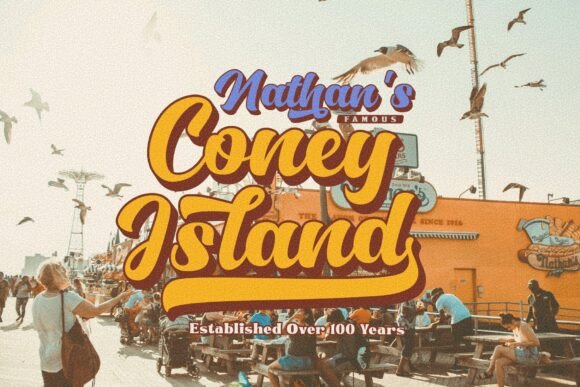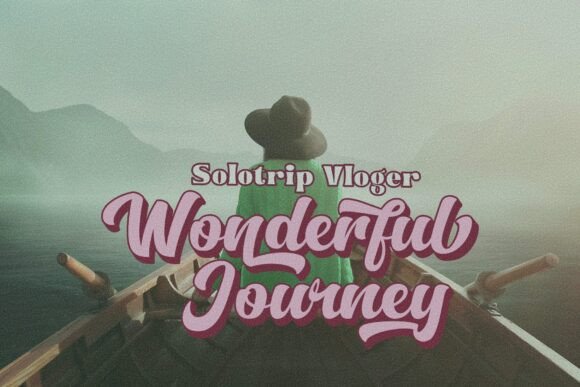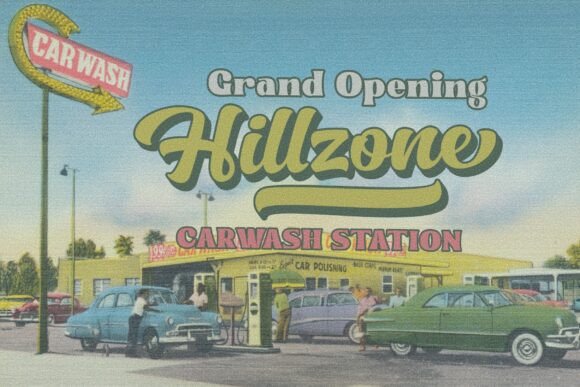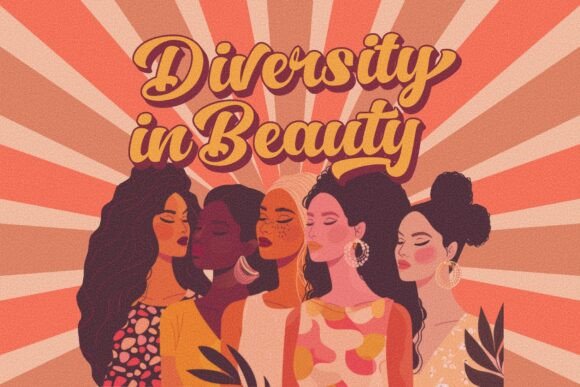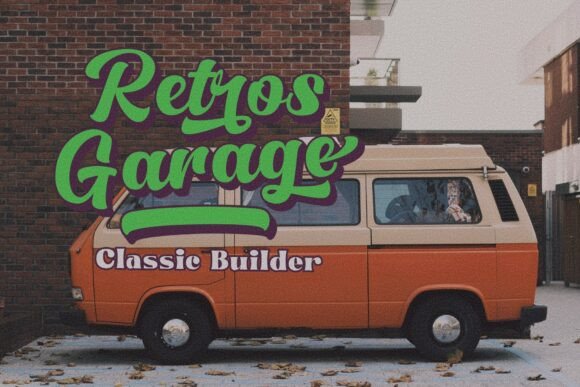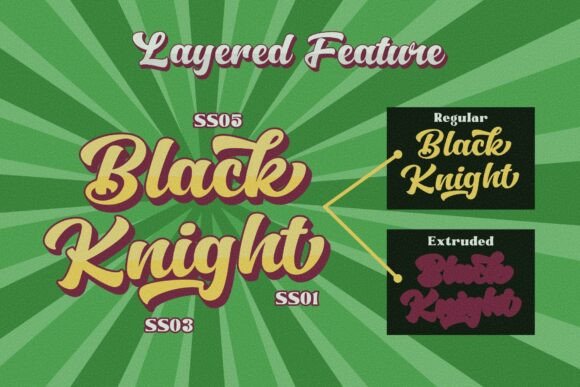
Introducing Black Knight Font: A Timeless Layered Script Font
Proudly presented, fresh from the oven, is the stunning layered script font known as Black Knight Font. This exquisite font is designed to add a touch of elegance and sophistication to any design project. In this article, we’ll delve into the features and benefits of Black Knight Font, and explore how it can elevate your designs to new heights.
A Unique Layered Design
One of the standout features of Black Knight Font is its layered design. To use this font, the regular font must be placed in front of an extruded font, which serves as the background. This clever design allows for a range of creative possibilities, making it perfect for designers and crafters looking to add depth and dimension to their work.
Emphasizing Beauty and Timelessness
Black Knight Font is designed to emphasize beauty and timelessness, making it an excellent choice for classic, modern, and contemporary themes. The font’s elegant lines and curves evoke a sense of sophistication and luxury, while its versatility ensures it can be used in a wide range of design applications.
Alternate Glyphs and Multilingual Support
Black Knight Font comes with a wealth of alternate glyphs, including alternate, stylistic alternate, and swash options. This extensive range of glyphs allows designers to experiment with different styles and variations, ensuring their work stands out from the crowd. Additionally, this font offers multilingual support in over 25 languages, making it an excellent choice for global design projects.
Black Knight Font is an ideal choice for designers and crafters looking to add a touch of elegance and sophistication to their work. Whether you’re creating wedding invitations, branding materials, or digital products, this font is sure to impress. Its versatility and range of features make it an excellent addition to any design toolkit.
Key Features of Black Knight Font
- Layered script font with regular and extruded font options
- Designed to emphasize beauty and timelessness
- Perfect for classic, modern, and contemporary themes
- Extensive range of alternate glyphs, including alternate, stylistic alternate, and swash options
- Multilingual support in over 25 languages
Tips for Using Black Knight Font
- Experiment with different layering options to achieve unique effects
- Use the alternate glyphs to add variation and interest to your design
- Pair Black Knight Font with other elegant fonts for a sophisticated look
- Take advantage of the font’s multilingual support to create global design projects
In conclusion, Black Knight Font is a stunning layered script font that offers a range of creative possibilities for designers and crafters. Its unique design, extensive range of alternate glyphs, and multilingual support make it an excellent choice for a wide range of design applications. Whether you’re looking to add a touch of elegance and sophistication to your work or simply want to experiment with new design possibilities, Black Knight Font is an excellent addition to any design toolkit.